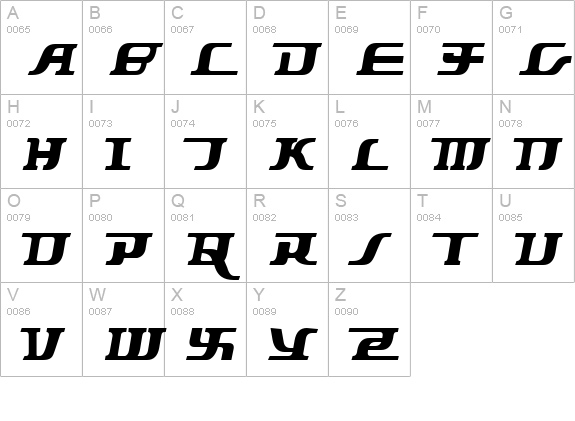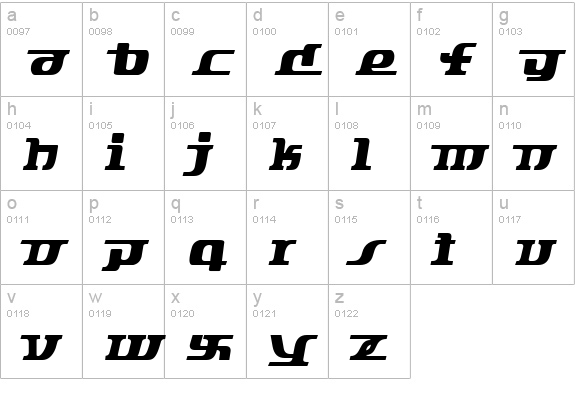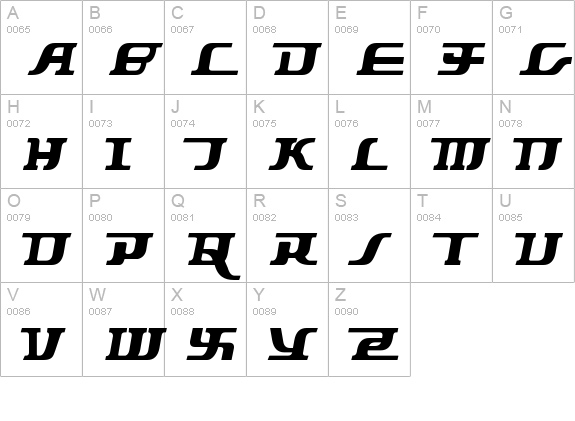
Starbat Font Details
Introducing Starbat font, a stunning typeface that is sure to capture the attention of anyone who lays eyes upon it. With its unique and intricate design, Starbat is the perfect choice for those seeking a font that effortlessly combines elegance and creativity. This font boasts a wide range of characters, from bold and powerful letters to delicate and graceful curves. Each letter has been meticulously crafted, resulting in a visually striking and artistically pleasing typeface. Whether used for headlines, logos, or even body text, Starbat is certain to make a lasting impression. One of the most exciting aspects of Starbat font is that it is completely free. Yes, you heard that right! This incredible font is freely available to download at FontsMarket.com. Now, you can enhance your designs without breaking the bank. Not only does Starbat offer exceptional aesthetics, but it also provides maximum versatility. This font is compatible with various design software, ensuring a seamless integration into your creative projects. From print to digital, Starbat font adapts effortlessly to any medium, allowing you to explore endless possibilities. So why wait? Take advantage of this amazing opportunity and download Starbat font today. Elevate your designs to new heights with this captivating and freely accessible typeface. Unleash your creativity with Starbat font and let it shine in every aspect of your work.